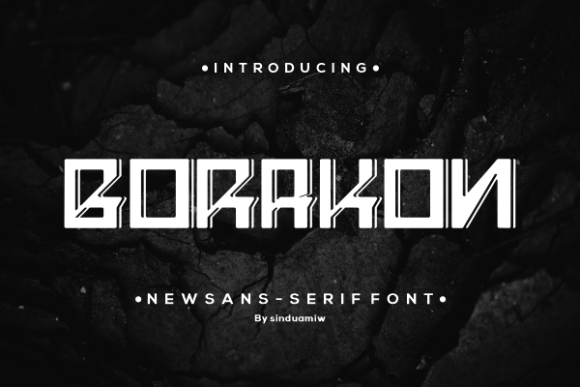
The Ultimate Guide to Borakon Font: Unleash Your Design Potential
I’ll never forget the time I was working on a project for a bold and edgy client, and I just couldn’t find the right font to match their vibe. I scoured the internet, tried out countless fonts, but nothing seemed quite right. That was until I stumbled upon Borakon Font. This cool, powerful, and modern sans serif font has been a game-changer for my designs, and I’m excited to share its awesomeness with you! 😊
Borakon Font Review: The Good and the Great
So, what makes Borakon Font so special? Let’s dive into the good stuff! ✨
- ✅ Unique and edgy design: Borakon Font is perfect for loud designs, posters, quotes, or anything that needs a bold and modern typography.
- ✅ Highly versatile: This font is suitable for a wide range of design projects, from branding and advertising to packaging and digital media.
- ✅ Easy to read: Despite its bold and edgy design, Borakon Font is surprisingly easy to read, even at smaller font sizes.
- ✅ OpenType features: Borakon Font comes with a range of OpenType features, including glyphs and stylistic alternates, which can add an extra layer of creativity to your designs.
The Not-So-Perfect: A Few Quirks and Limitations
While Borakon Font is an amazing font, it’s not without its quirks and limitations. Here are a few things to keep in mind: 🤔
- ⚠️ Limited use in formal designs: Due to its bold and edgy design, Borakon Font may not be the best choice for formal designs, such as business cards or resumes.
- ⚠️ May not work well with certain colors: Borakon Font can be a bit tricky to pair with certain colors, so be sure to experiment with different color combinations to find the perfect match.
The Story Behind Borakon Font
Borakon Font was designed by a team of creatives who wanted to create a font that would stand out in a crowded design world. Inspired by modern sans serif fonts and edgy typography, Borakon Font was born. The design team poured their hearts and souls into creating a font that’s both bold and beautiful.
| Font Name | Borakon Font |
| Author | sinduamiw |
| What is Borakon Font? | Borakon Font is a modern sans serif font suitable for loud designs, posters, quotes, or anything that needs unique typography. |